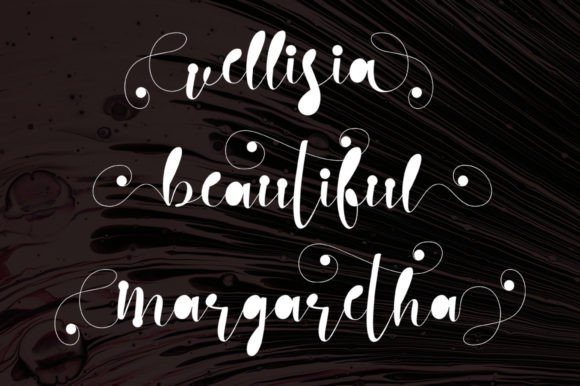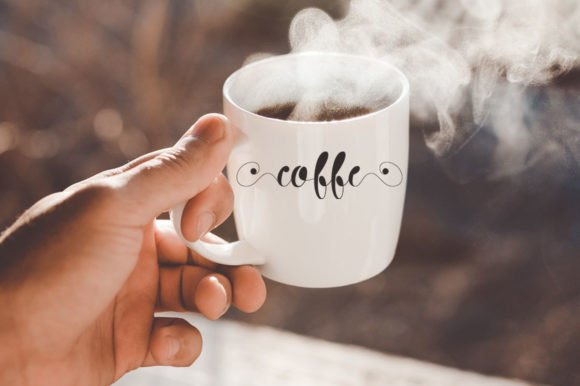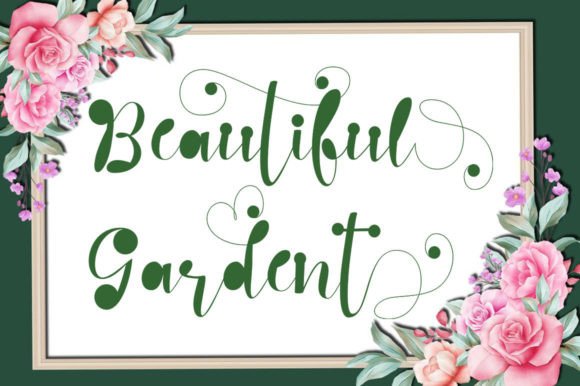
Catherine Font: The Sweet and Delicate Script Font for Romantic Designs
Are you a designer or crafter looking for a font that can add a touch of romance and elegance to your designs? Look no further than the Catherine Font! This beautiful script font is perfect for creating wedding invitations, cards, and other designs that require a personal and delicate touch.
What is Catherine Font?
Catherine Font is a sweet and delicate script font that is designed to bring a touch of joy and romance to your designs. Its dainty and elegant strokes make it ideal for creating beautiful wedding invitations, cards, and other romantic designs. The font is carefully crafted to give your designs a personalized and handmade feel, making it perfect for crafters and designers who want to add a special touch to their work.
Features of Catherine Font
Catherine Font has several features that make it a great choice for designers and crafters. Some of its key features include:
- Sweet and delicate strokes: The font has a dainty and elegant feel that makes it perfect for creating romantic designs.
- Script style: The font is a script font, which gives it a personal and handwritten feel.
- Easy to read: Despite its delicate strokes, the font is easy to read, making it perfect for creating designs that require a lot of text.
- Versatile: The font can be used for a variety of designs, including wedding invitations, cards, and other romantic designs.
Uses of Catherine Font
Catherine Font is a versatile font that can be used for a variety of designs. Some of its most popular uses include:
- Wedding invitations: The font is perfect for creating beautiful and elegant wedding invitations that will set the tone for the big day.
- Cards: The font can be used to create beautiful and personalized cards for special occasions, such as birthdays, anniversaries, and holidays.
- Romantic designs: The font is perfect for creating romantic designs, such as posters, flyers, and social media graphics.
Why Choose Catherine Font?
There are many reasons why designers and crafters choose Catherine Font for their designs. Some of the reasons include:
- Unique and elegant: The font is unique and elegant, making it perfect for designers and crafters who want to add a special touch to their work.
Tips for Using Catherine Font
Here are some tips for using Catherine Font in your designs:
- Use it with a simple background: The font is delicate, so it’s best to use it with a simple background that won’t distract from the text.
- Experiment with different colors: The font looks great in a variety of colors, so don’t be afraid to experiment and find the perfect color for your design.
- Use it sparingly: The font is elegant, so it’s best to use it sparingly to avoid overwhelming the design.
| Author | Shape Studio |
Catherine Font is a beautiful and elegant script font that is perfect for designers and crafters who want to add a touch of romance and elegance to their designs. Its delicate strokes and script style make it ideal for creating wedding invitations, cards, and other romantic designs. With its ease of use, affordability, and versatility, Catherine Font is a great choice for anyone looking to add a special touch to their work.